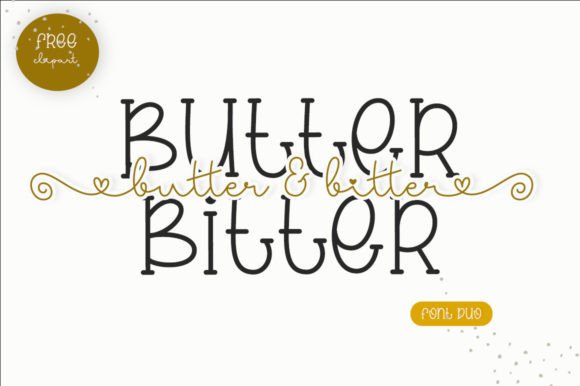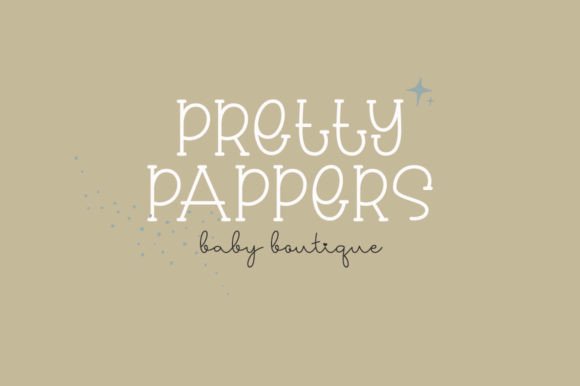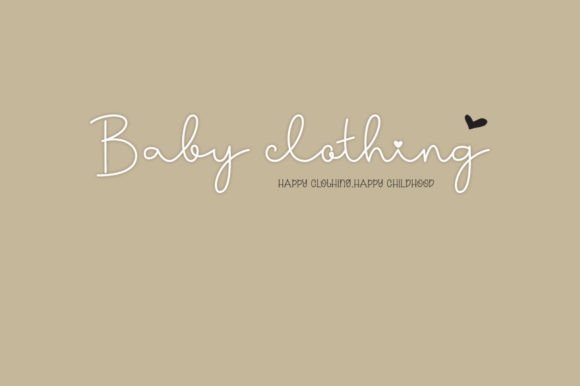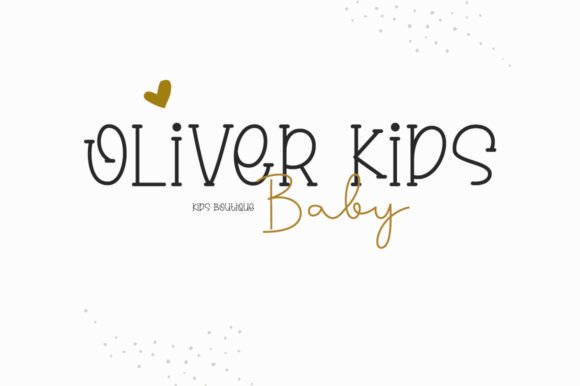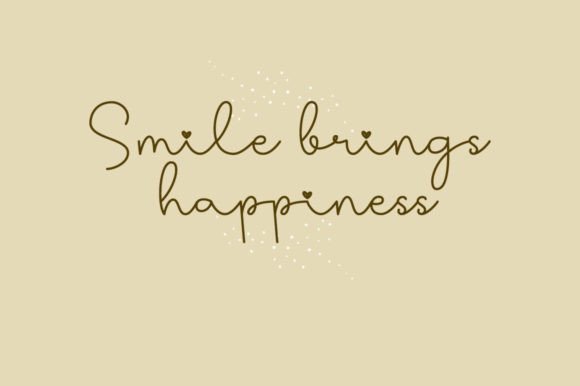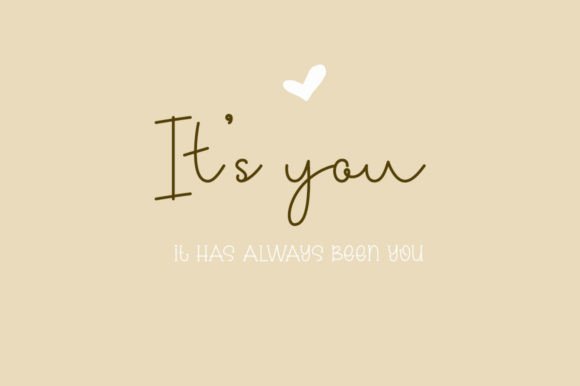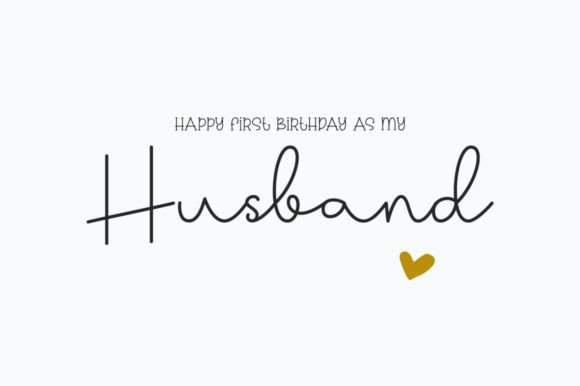
Butter Bitter consists of two handwritten fonts designed to complement each other perfectly. Together or apart, these fonts are ideal for adding a chic and cheery touch to your crafts. Butter Bitter is PUA encoded which means you can access all glyphs and swashes with ease!
Butter Bitter Duo Font